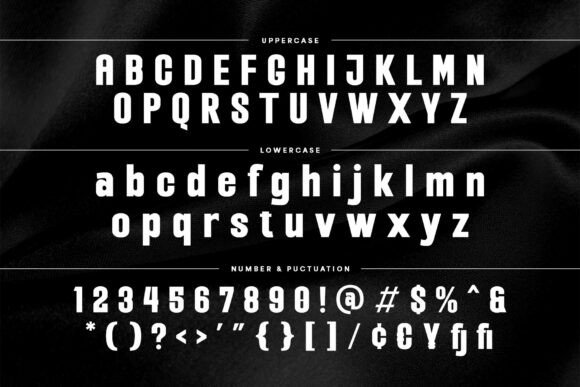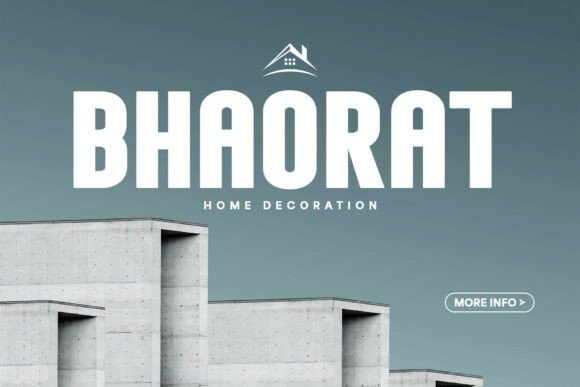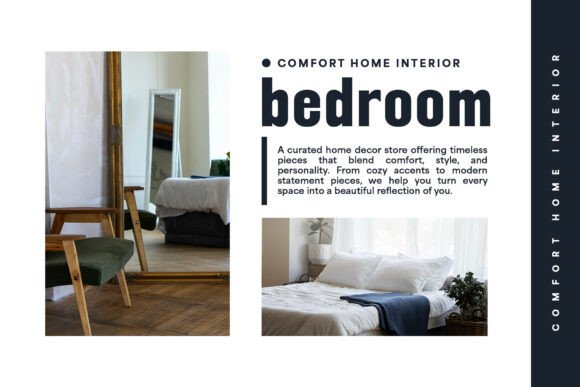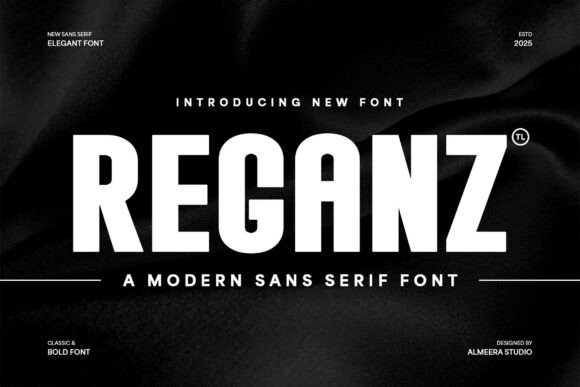
Introduction to Reganz Font
Unleash the dynamism of Reganz, a truly modern sans serif font designed for bold and impactful statements.
This versatile typeface is your ideal partner for contemporary branding, powerful advertising campaigns, digital interfaces, and dynamic headlines Reganz features robust yet clean letterforms that command attention while maintaining excellent readability.
Key Features of Reganz Font
Why Choose Reganz Font?
Reganz Font offers exceptional quality and versatility, making it a valuable addition to your design toolkit. Whether you’re creating for personal projects or commercial use, Reganz Font delivers professional results.